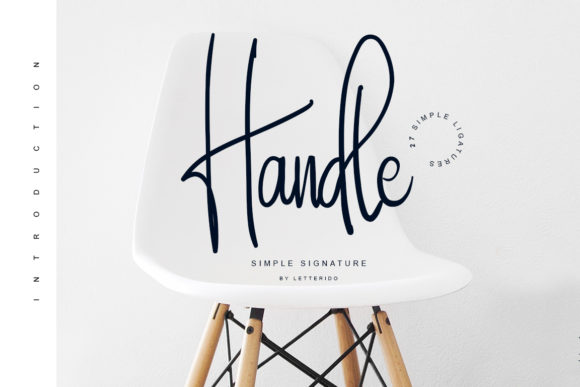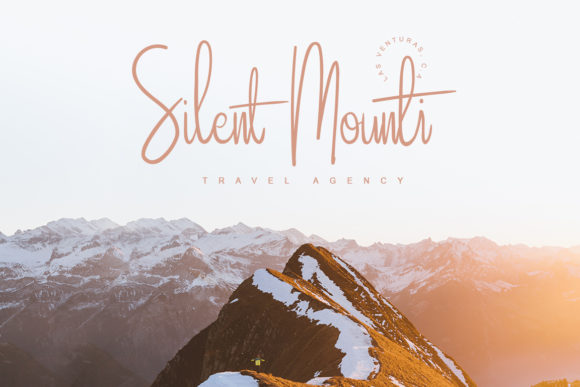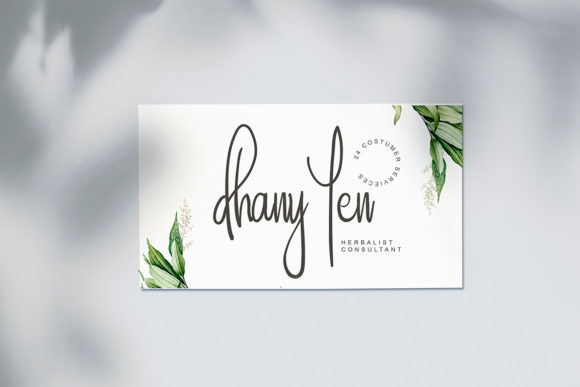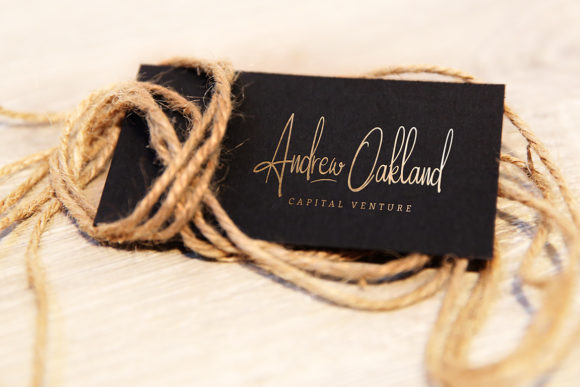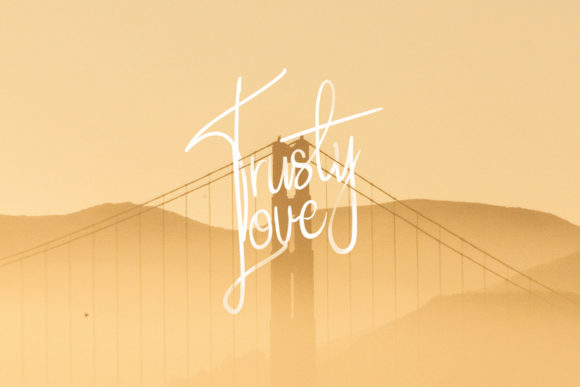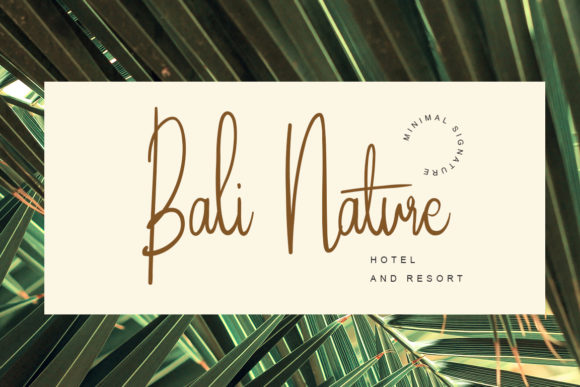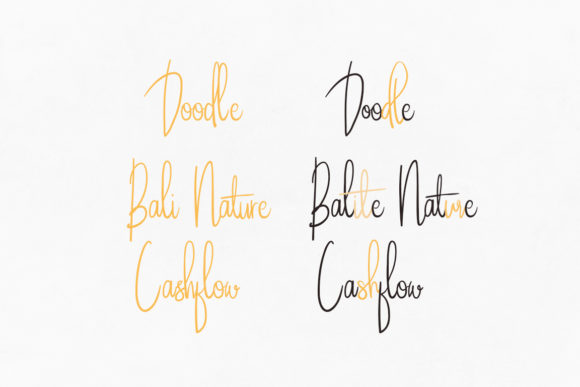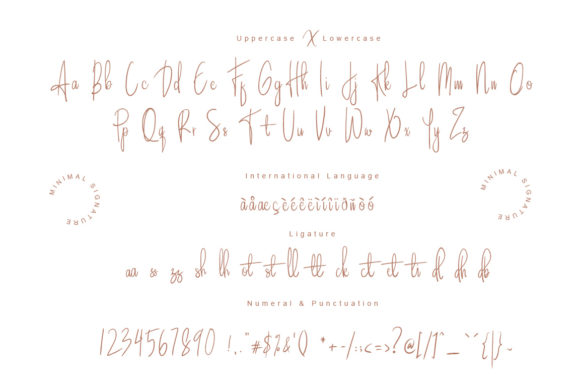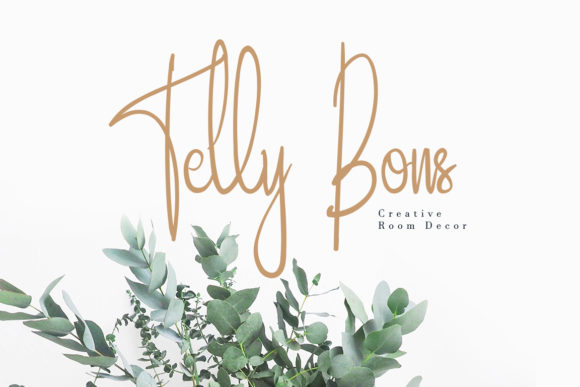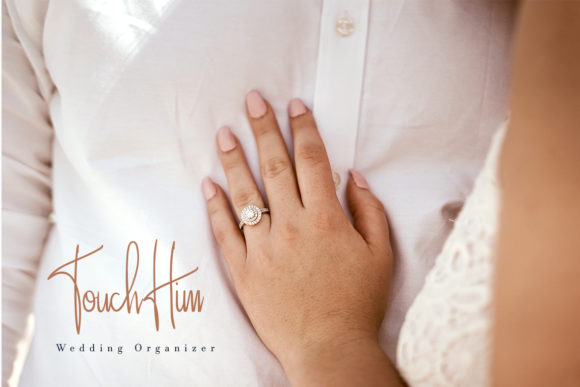
HomeScript FontsHandle Font Script Fonts Handle Font FacebookXPinterestWhatsApp Handle Font Poster 2 Handle Font Poster 3 Handle Font Poster 4 Handle Font Poster 5 Handle Font Poster 6 Handle Font Poster 7 Handle Font Poster 8 Handle Font Poster 9 Handle Font Poster 10 Handle Font Poster 11 Handle Font Poster 12 Handle Font Poster 13 Handle Font Poster 14 Handle Font Poster 15 Handle Font Poster 16 About Handle Font Handle is a simple and casual handwritten font with a distintc and original style. DOWNLOAD ON CREATIVE FABRICAThis font is sold and delivered by Creative Fabrica. Font Canyon may earn a commission if you buy through this link. People also explored Minoesta Font Belistica Beauty Font Hipnotis Font Eneba Font Jamet Font Love Things Font Love Signature Font Fryhand Font Money Rich Font 312 0 TagsHandle Font Previous articleVulpecula FontNext articleDeliagha Font LEAVE A REPLY Cancel reply Comment: Please enter your comment! Name:* Please enter your name here Email:* You have entered an incorrect email address! Please enter your email address here Website: Save my name, email, and website in this browser for the next time I comment. Personal Use Free Ernesthuge Personal Use Free Read more about this font Valentines Day Personal Use Free Read more about this font Concrete Wall Personal Use Free Read more about this font Black Personal Use Free Read more about this font BLOG Using Fonts in Digital Marketing: Tips to Strengthen Your Brand Identity In the realm of digital marketing, every visual element plays a crucial role in shaping a brand's identity, and fonts are no exception. The... Free vs Paid Fonts: Why Investing in Premium Fonts Is Worth It Modern Sans-Serif Fonts That Brands Love in 2025 Exploring Font Trends